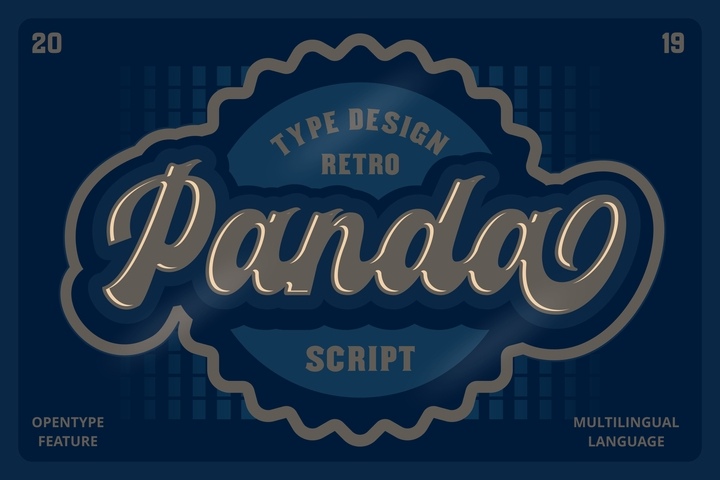
Panda Script Font
Panda Script Font is perfect for adorable children's brands, cuddly toy companies, gentle baby products, playful family entertainment, charming daycare centers, and lovable pet services. Its endearing character makes it ideal for children's bookstores, gentle pediatric services, adorable nursery decor, cute animal sanctuaries, charming craft workshops, and any project requiring gentle charm with adorable appeal and lovable personality.
This font is exciting because it captures the irresistible cuteness and gentle nature of pandas while delivering exceptional functionality for brands seeking to create instant emotional connections through adorable design and charming personality. The lovingly crafted letterforms embody the same endearing qualities that make pandas universally beloved, creating typography that feels gentle, approachable, and instantly lovable for audiences of all ages.
The Panda Script Font family typically includes Light, Regular, Medium, and Bold weights with adorable alternates, gentle ligatures, and charming decorative elements that enhance its lovable personality. This comprehensive collection enables family-focused professionals to create endearing brand systems that maintain adorable authenticity while offering flexibility for various cute applications requiring both charming appeal and contemporary family market positioning.